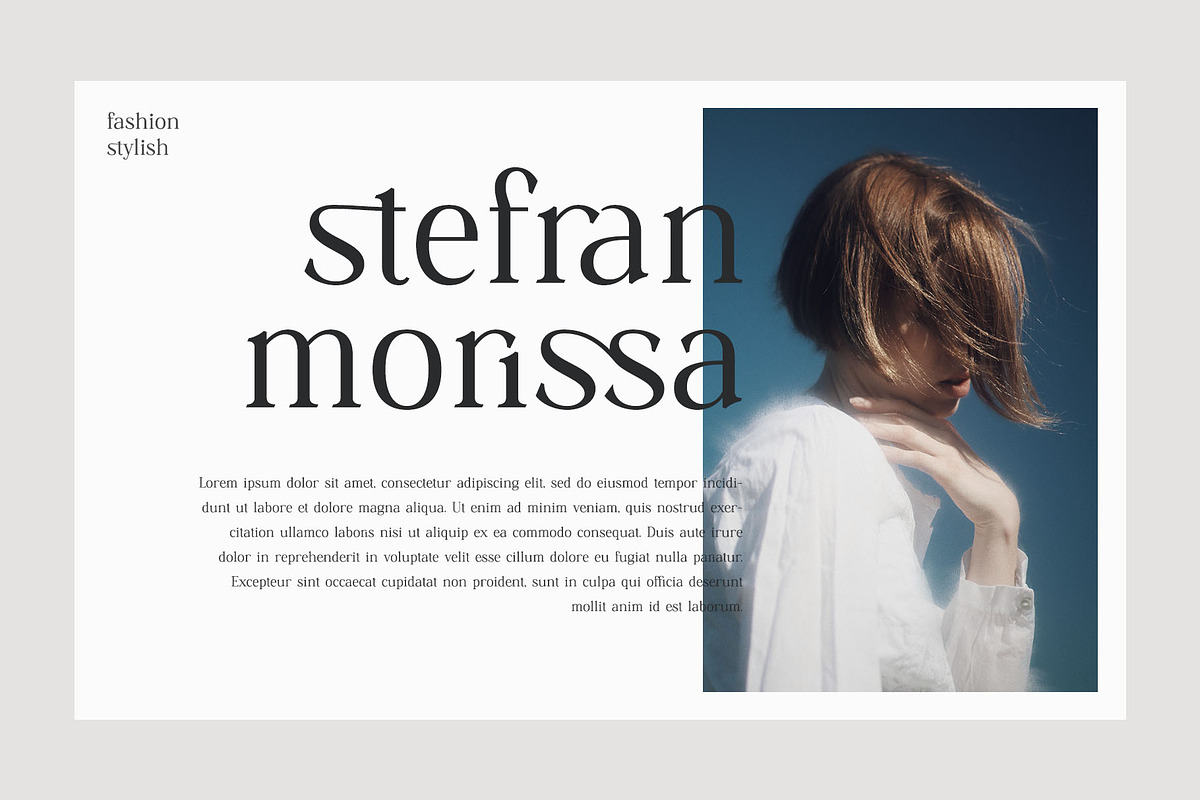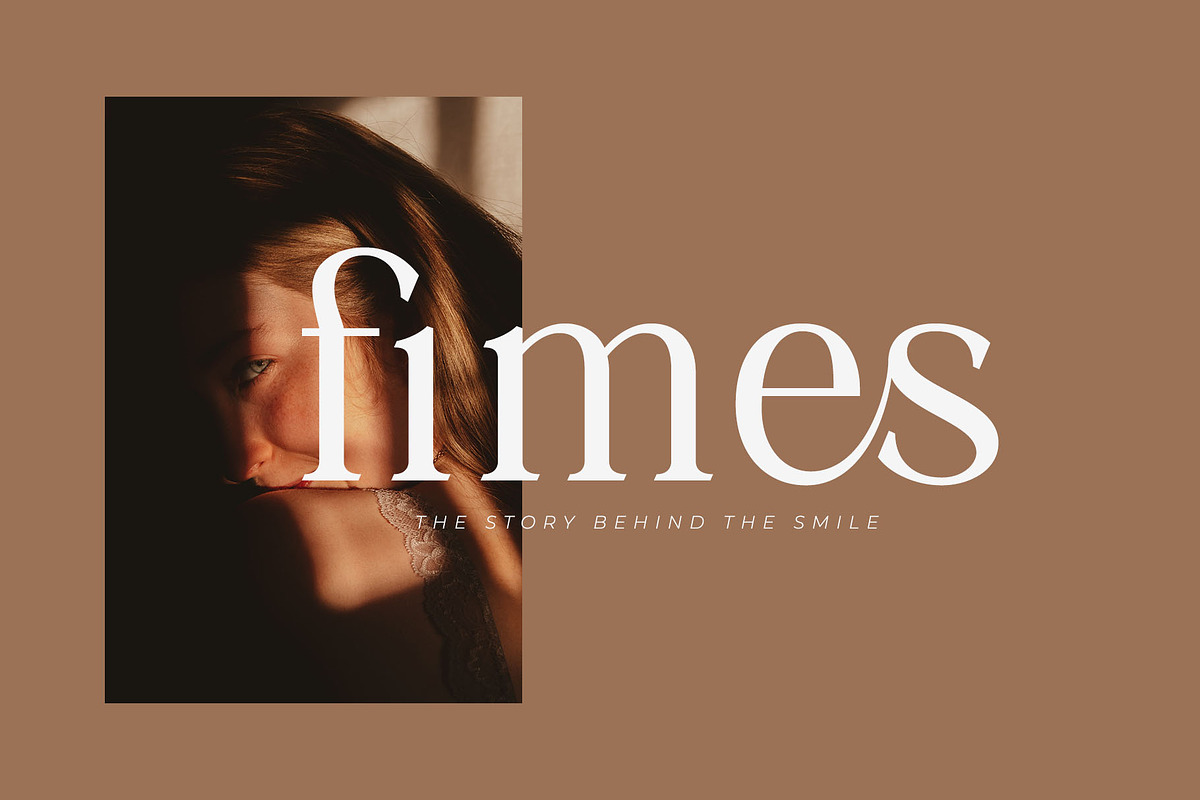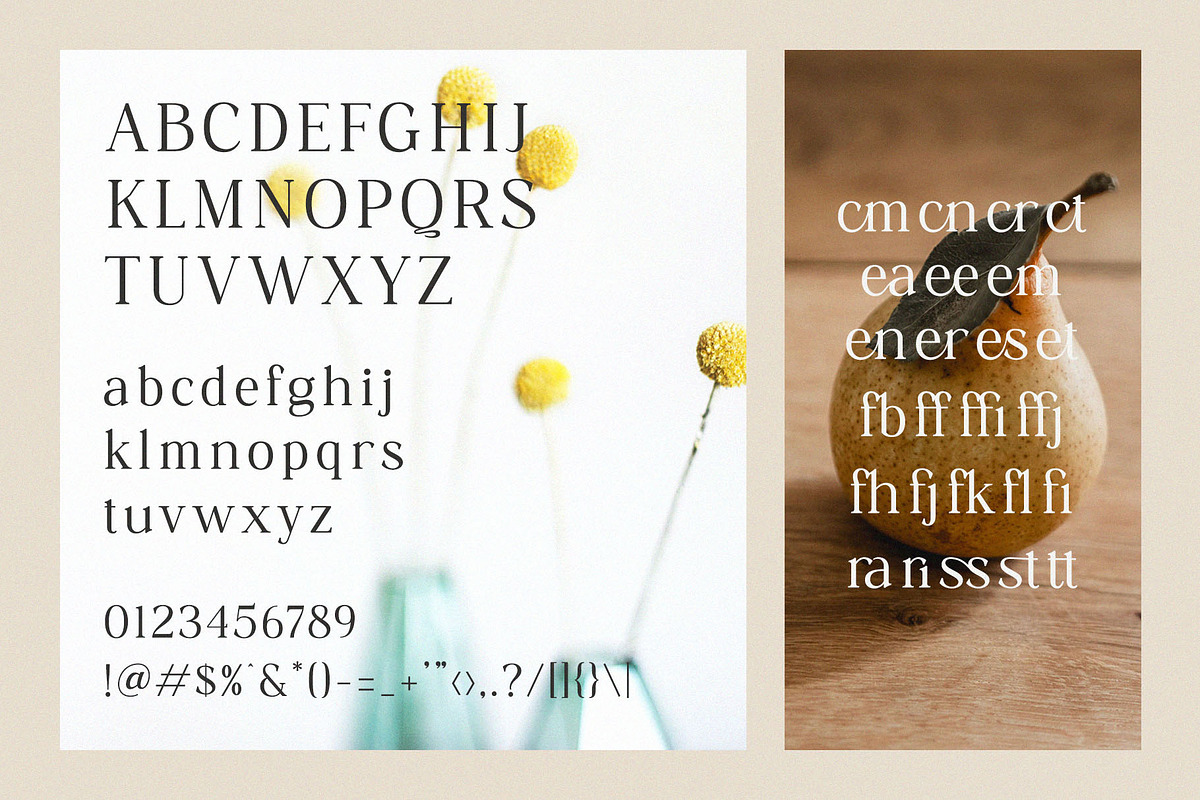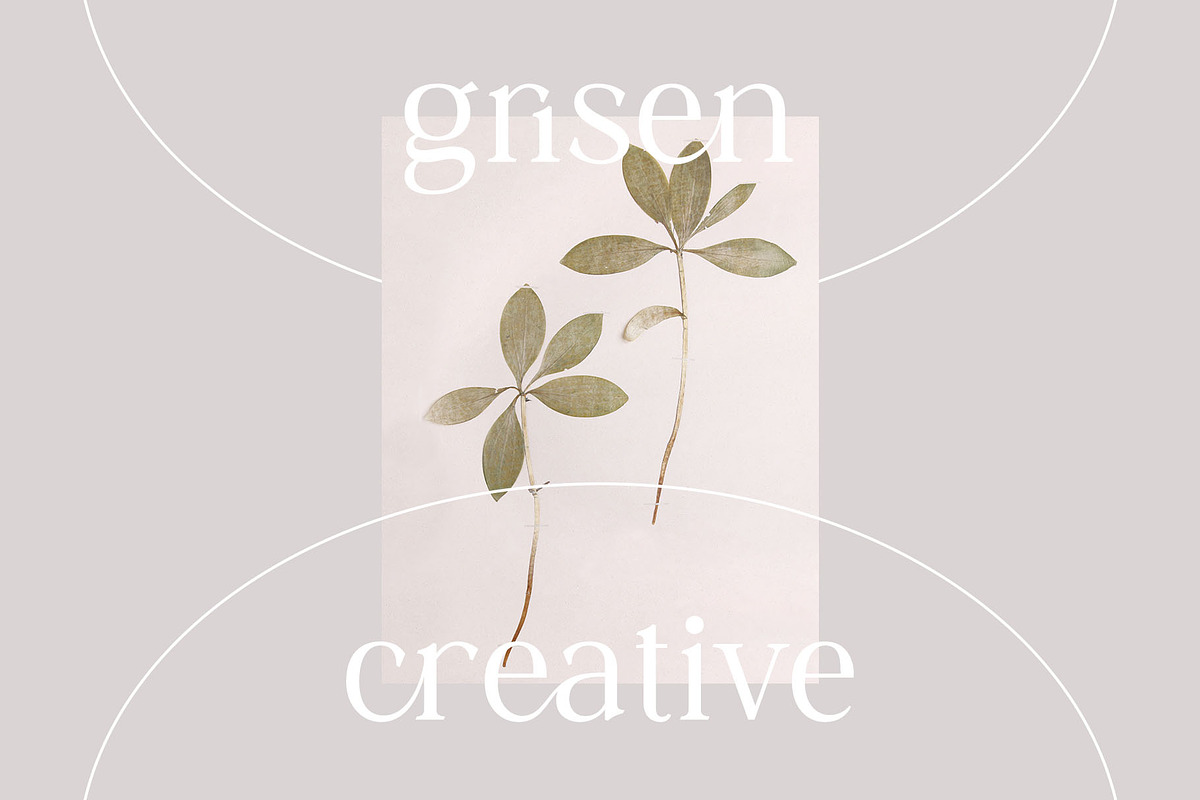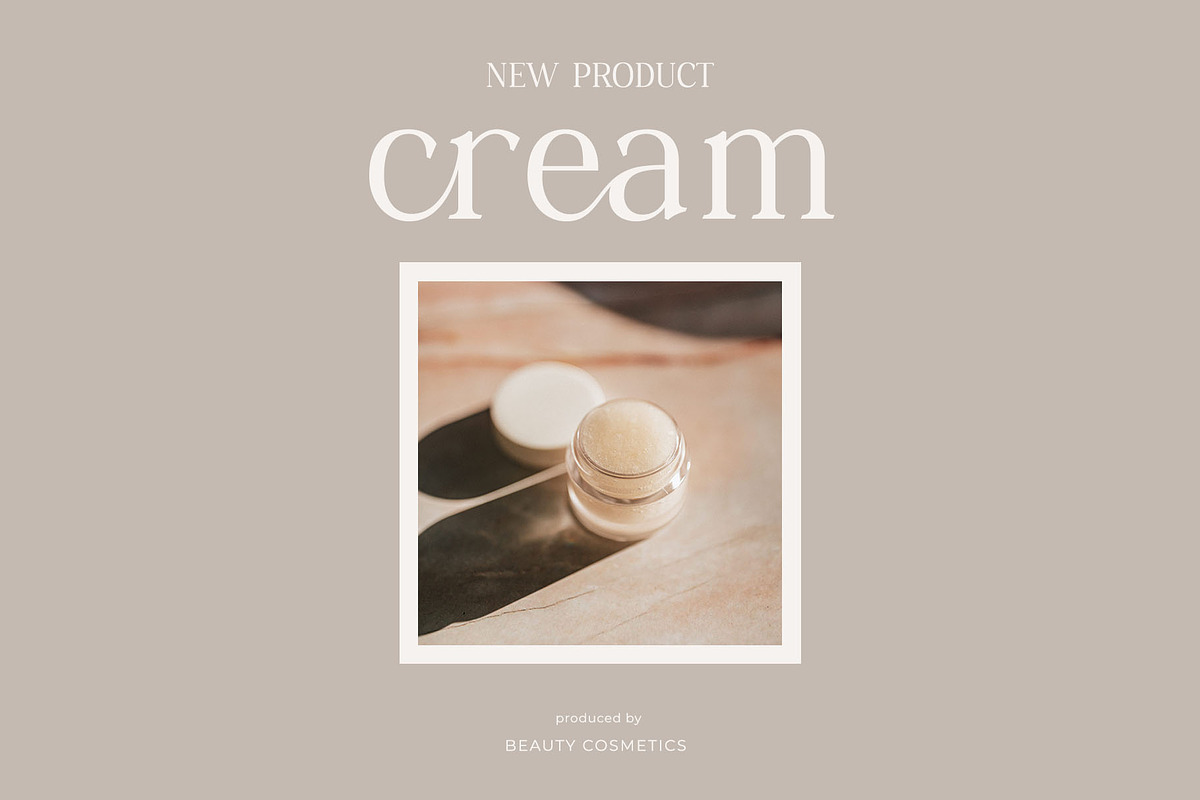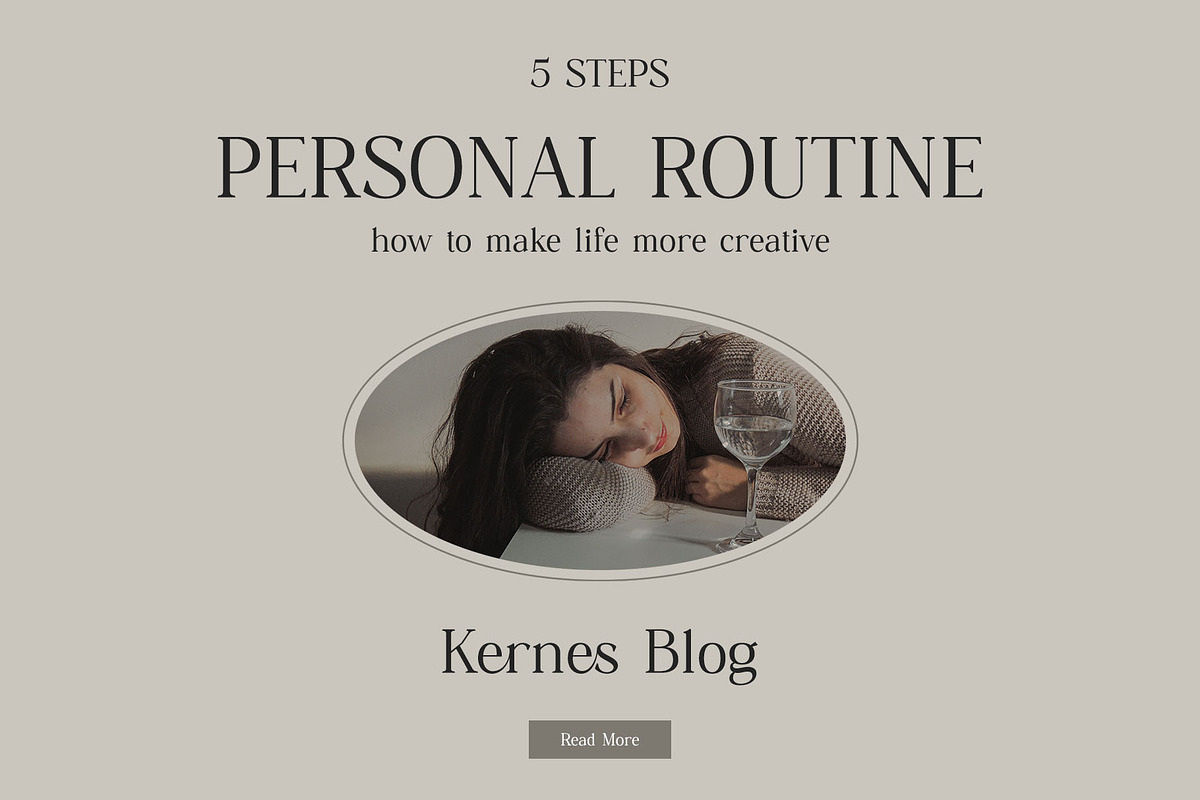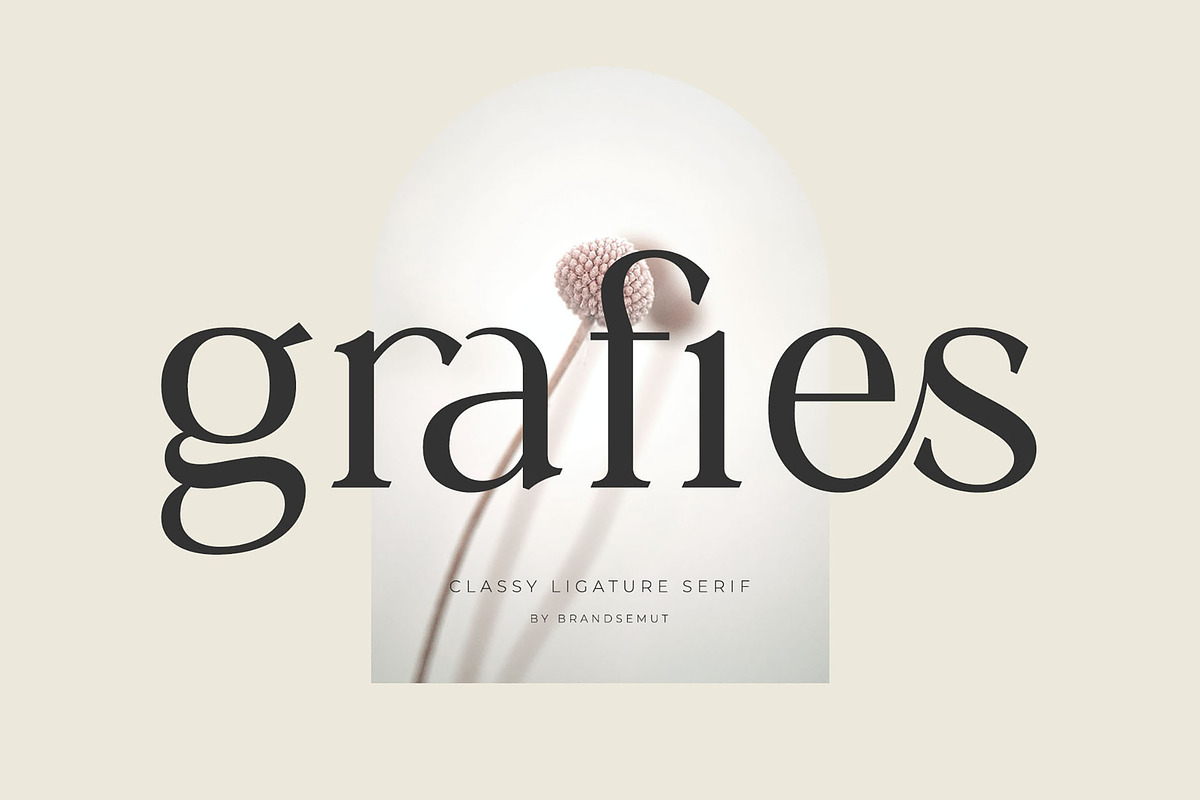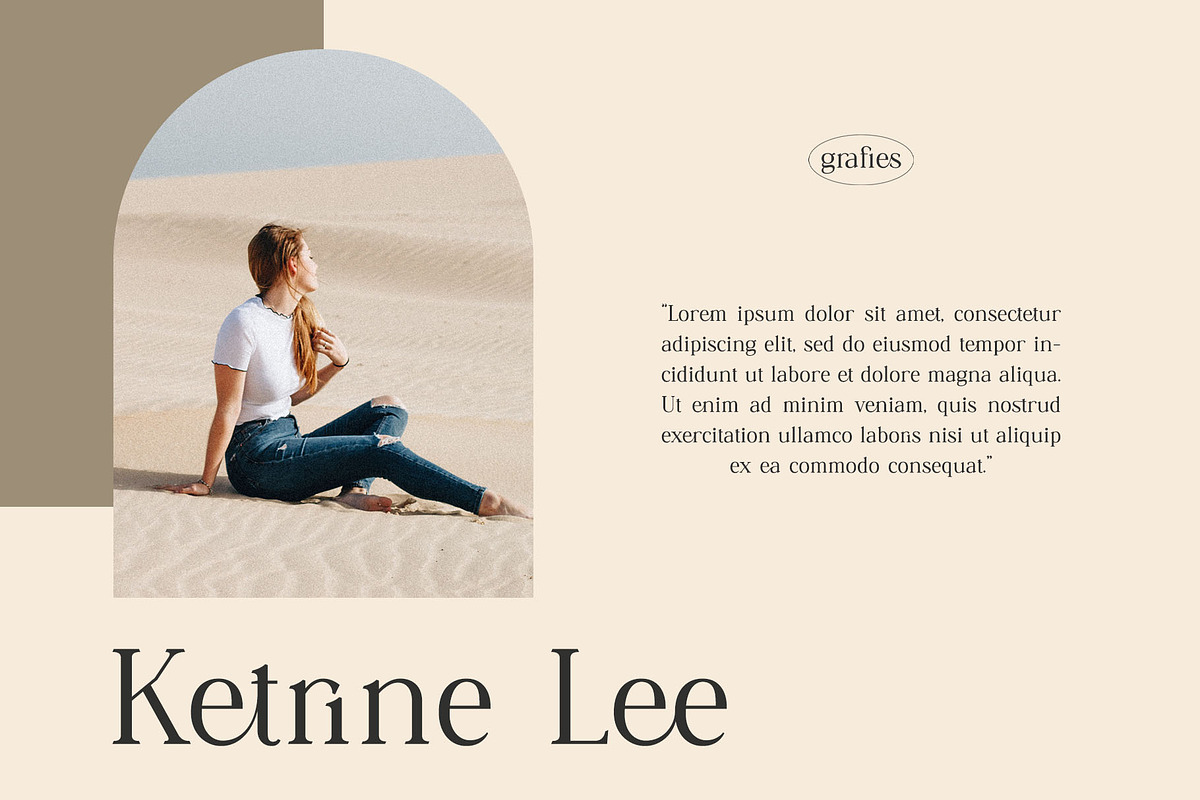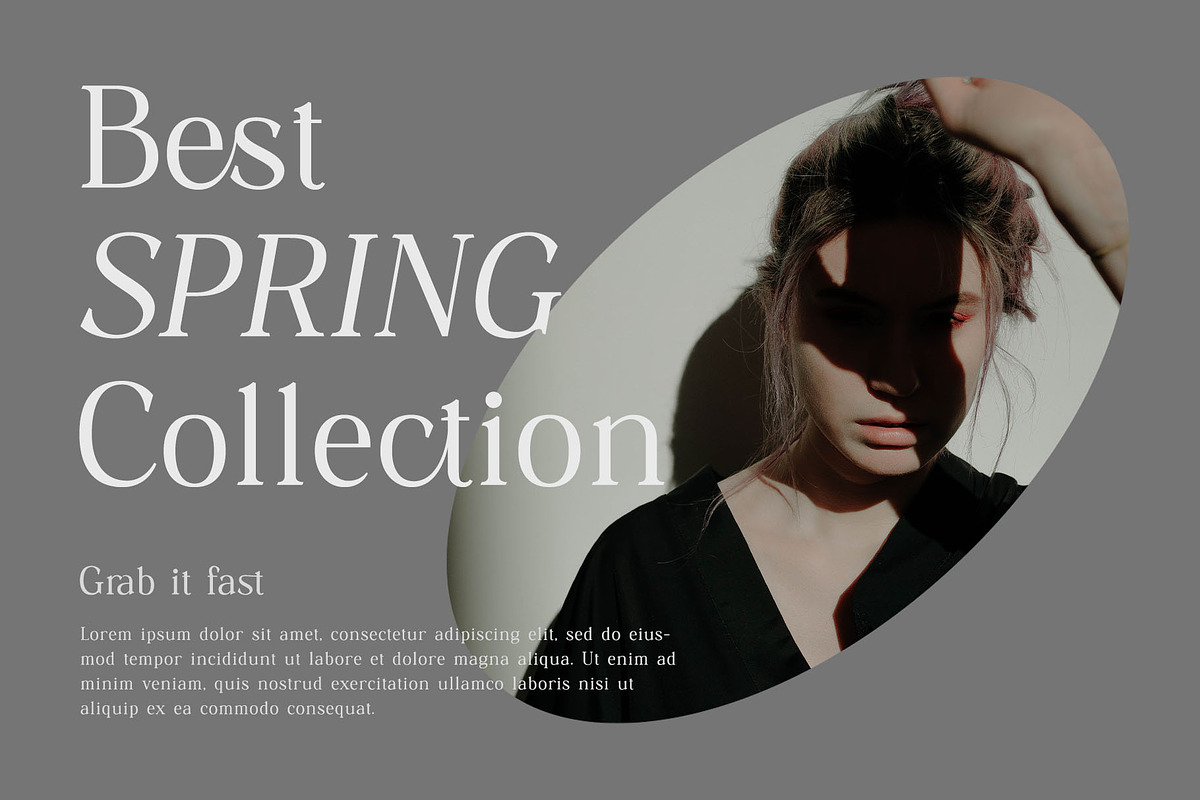
Grafies | Classy Ligature Serif
Introducing our new "Grafies", Modern ligature typeface with Unique, Classy and Stylish. Is perfect for branding, logos, invitation, master heads, and more.
Grafies Features :
- Multilanguage